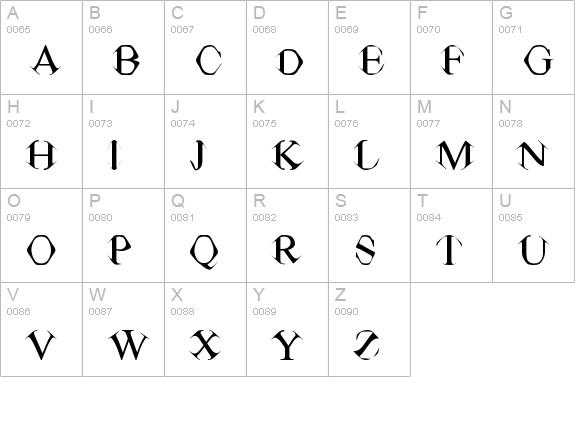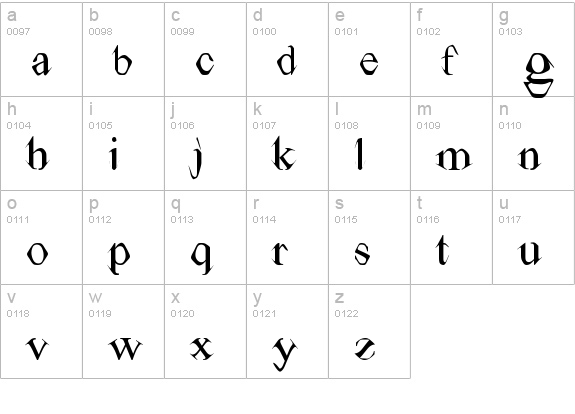
TV Times Font Details
TV Times font is a captivating and versatile typeface that brings a touch of elegance and nostalgia to any project. Inspired by the classic typography used in television listings, this font is perfect for creating eye-catching headlines, stylish logos, and stunning graphics. With its bold and distinctive letterforms, TV Times font effortlessly captures the essence of retro charm, making it a popular choice for designers who want to add a vintage flair to their designs. One of the best things about TV Times font is that it is freely available to download at FontsMarket.com. This means that you can easily access this incredible font without spending a dime. Whether you are a professional designer or a hobbyist, having access to high-quality fonts without any cost is a huge advantage. So, why wait? Head over to FontsMarket.com and start exploring the world of TV Times font. With its wide range of weights and styles, you can find the perfect variation to suit your creative needs. In addition to its captivating aesthetics, TV Times font also boasts excellent legibility, ensuring that your message is conveyed clearly and effectively. Whether you are designing a poster, a website, or a social media post, this font will make sure that your content stands out and leaves a lasting impression on your audience. So, if you are looking for a font that combines timeless elegance with modern functionality, look no further than TV Times font. With its freely available download option at FontsMarket.com, it is an absolute must-have for any designer or creative enthusiast. Don't miss out on the opportunity to enhance your projects with this exceptional font. Download TV Times font today and let your creativity soar to new heights.